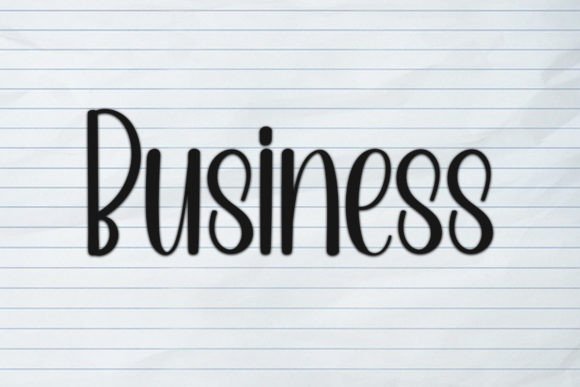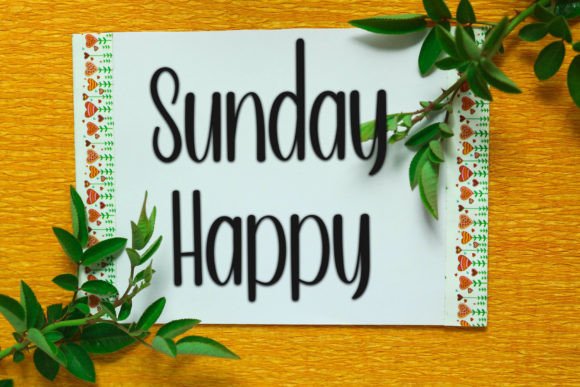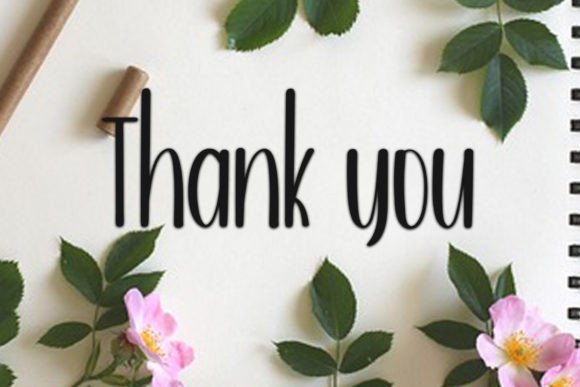
Introducing Happy Sunday Font: Elevate Your Designs with Elegance
Are you on the hunt for a font that adds a touch of sophistication and charm to your projects? Look no further than the Happy Sunday Font, a stunning handwritten font that is sure to capture your heart. With its elegant touch and timeless style, this font is perfect for designers and crafters looking to create spectacular designs that stand out from the crowd.
The Characteristics of Happy Sunday Font
Happy Sunday Font is a neat and beautiful handwritten font that boasts an incredibly distinct style. Its elegant touch is perfect for a wide range of projects, from wedding invitations and branding materials to social media graphics and more. The font’s classic and timeless design ensures that it will never go out of style, making it a valuable addition to any designer’s toolkit.
Why Choose Happy Sunday Font?
So, what sets Happy Sunday Font apart from other fonts on the market? Here are just a few reasons why designers and crafters are falling in love with this beautiful font:
- Elegant and Sophisticated: Happy Sunday Font exudes elegance and sophistication, making it perfect for high-end designs and projects that require a touch of luxury.
- Timeless Style: Unlike trendy fonts that quickly go out of style, Happy Sunday Font has a timeless quality that ensures it will remain relevant for years to come.
- Versatile: This font is incredibly versatile and can be used for a wide range of projects, from digital designs to print materials.
- Easy to Read: Despite its elegant and cursive nature, Happy Sunday Font is easy to read, making it perfect for body text and other applications where legibility is key.
Using Happy Sunday Font in Your Designs
So, how can you use Happy Sunday Font in your designs? Here are a few ideas to get you started:
- Wedding Invitations: Add a touch of elegance and sophistication to your wedding invitations with Happy Sunday Font.
- Branding Materials: Use Happy Sunday Font to create stunning branding materials, such as logos, business cards, and letterheads.
- Social Media Graphics: Create eye-catching social media graphics with Happy Sunday Font, perfect for promoting your business or sharing your favorite quotes.
- Digital Art: Use Happy Sunday Font to add a touch of elegance to your digital art, such as illustrations, watercolor paintings, and more.
Tips for Getting the Most Out of Happy Sunday Font
To get the most out of Happy Sunday Font, here are a few tips to keep in mind:
- Experiment with Different Sizes: Happy Sunday Font looks great in a variety of sizes, so don’t be afraid to experiment to find the perfect size for your project.
- Pair it with Other Fonts: Happy Sunday Font pairs well with a variety of other fonts, so try pairing it with some of your favorite fonts to create a unique and interesting look.
- Use it for Headings and Titles: Happy Sunday Font is perfect for headings and titles, so use it to add a touch of elegance and sophistication to your designs.
In conclusion, Happy Sunday Font is a beautiful and elegant handwritten font that is perfect for designers and crafters looking to add a touch of sophistication and charm to their projects. With its timeless style and versatile design, this font is sure to become a favorite in your toolkit. So why wait? Download Happy Sunday Font today and start creating spectacular designs that will leave a lasting impression!